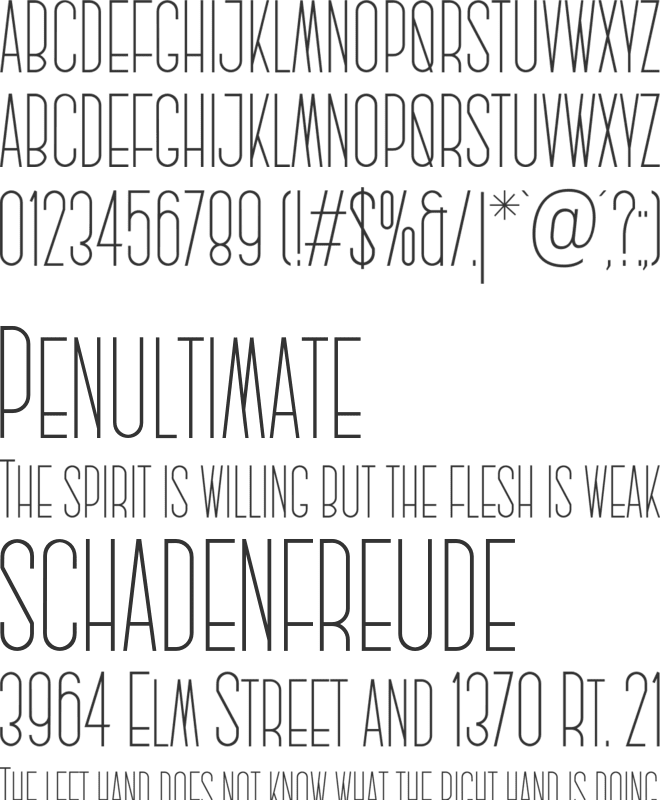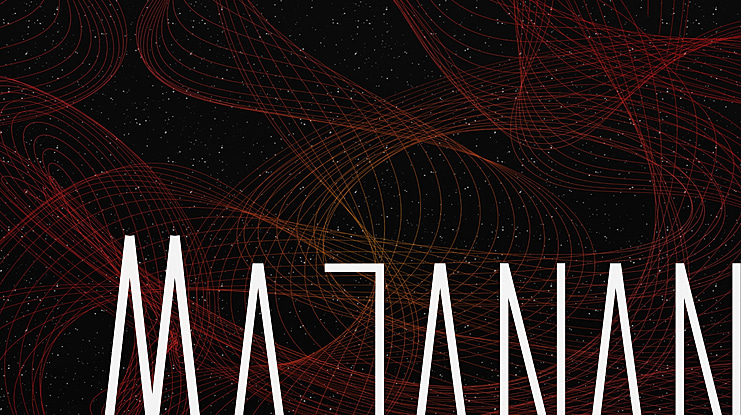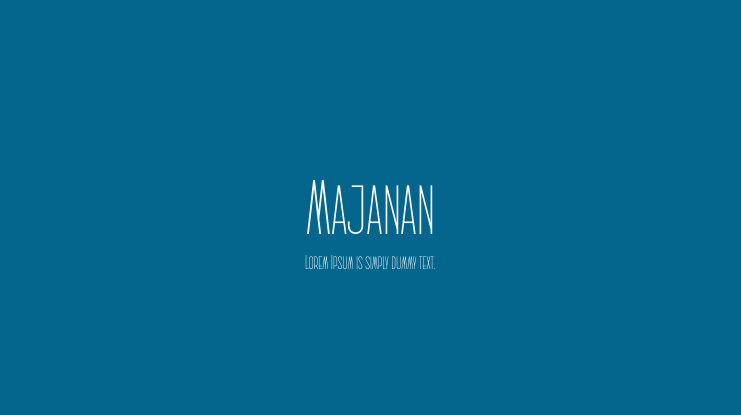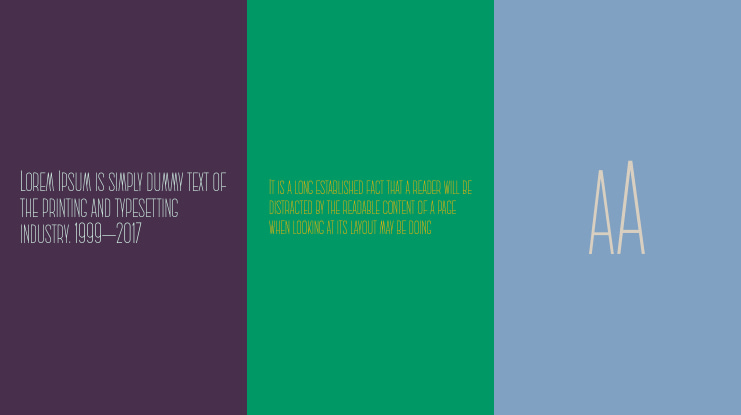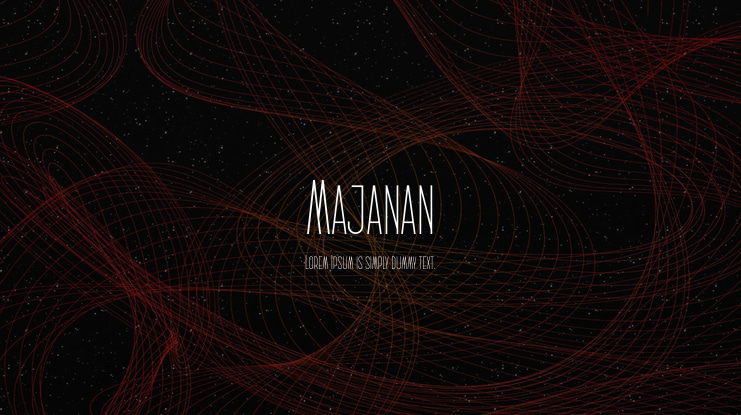
Majanan Font
Majanan is a Sans Serif Condensed font features Uppercase and Lowercase, Numerals and Punctuations and Multilingual characters. This font is suitable for posters, branding, headers, quotes, etc.